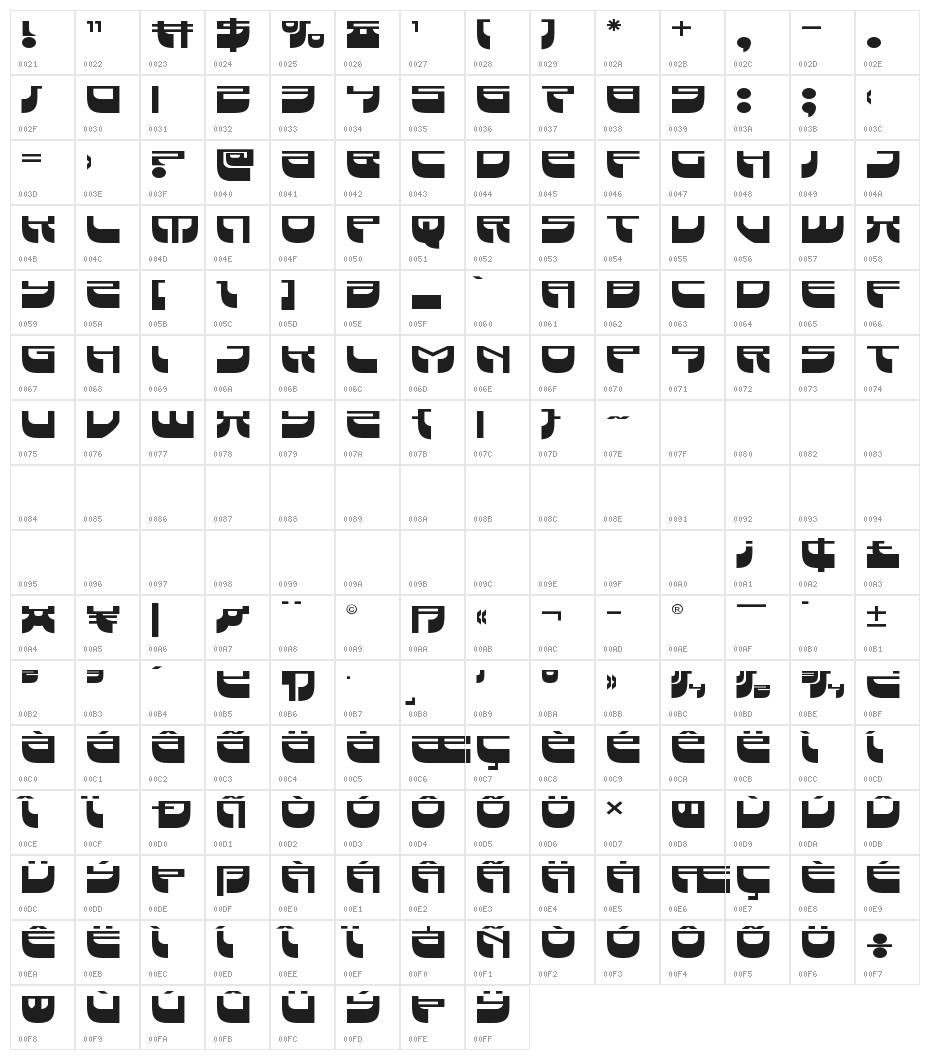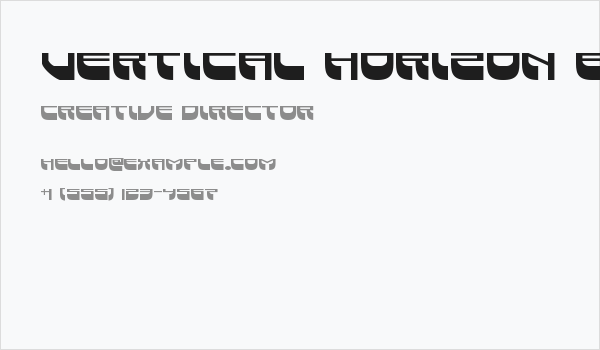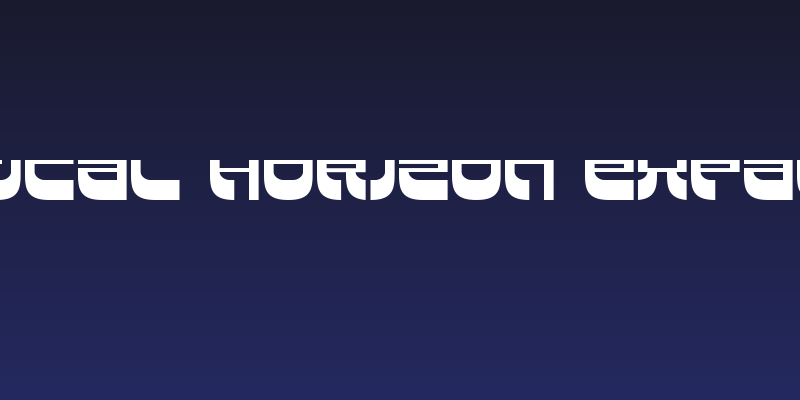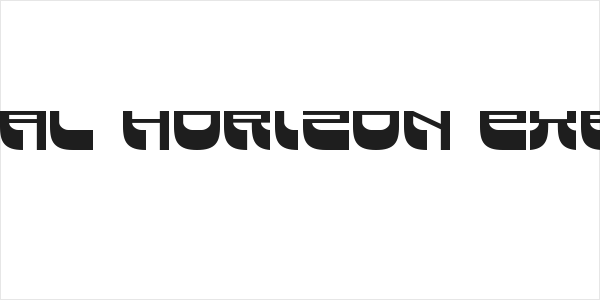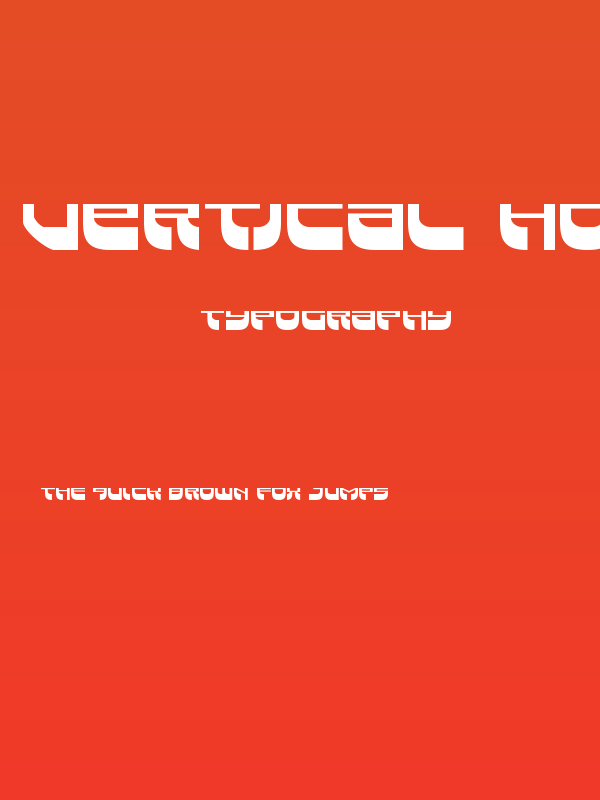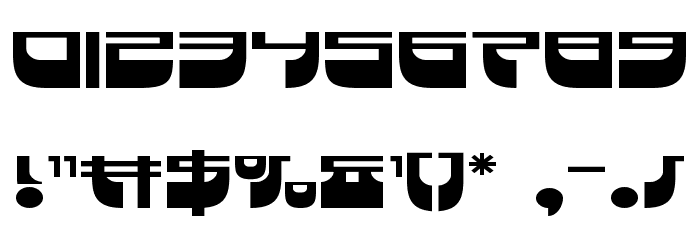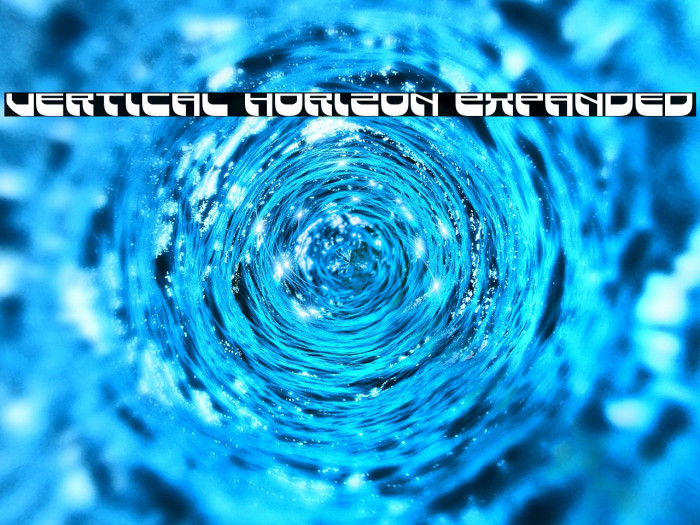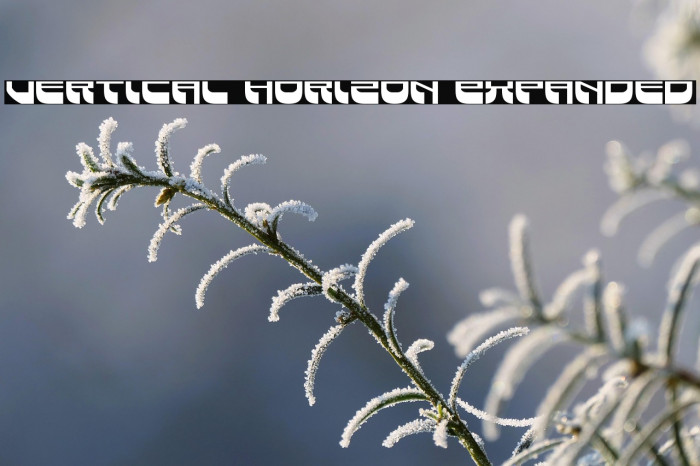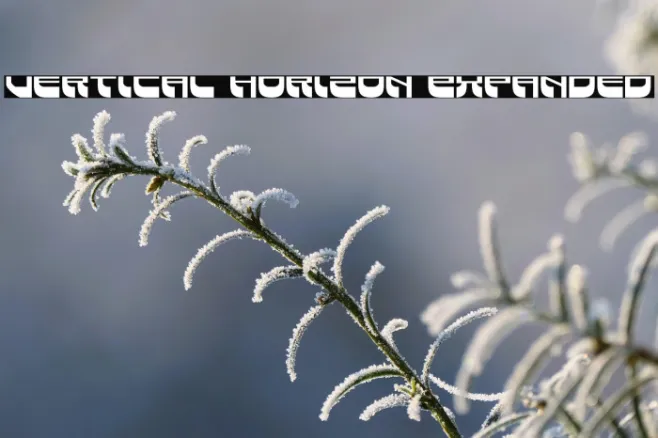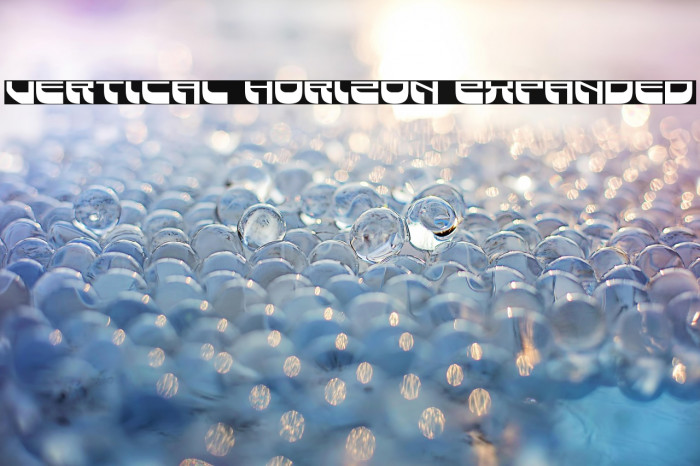
Vertical Horizon Expanded Font
Vertical Horizon Expanded Description
This font features a futuristic and bold design with a distinct geometric style. The characters are wide and expanded, giving a sense of modernity and innovation. Each letter is crafted with sharp angles and smooth curves, creating a unique visual appeal. The uppercase and lowercase letters maintain a consistent style, while the numbers and special characters complement the overall design. The font's structure is solid and impactful, making it suitable for projects that require a strong visual presence.
| Proposed Projects | Ideal for sci-fi themed designs, technology branding, video game titles, and modern posters. |